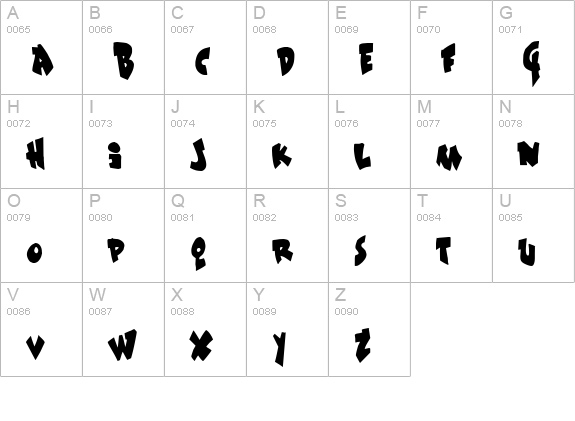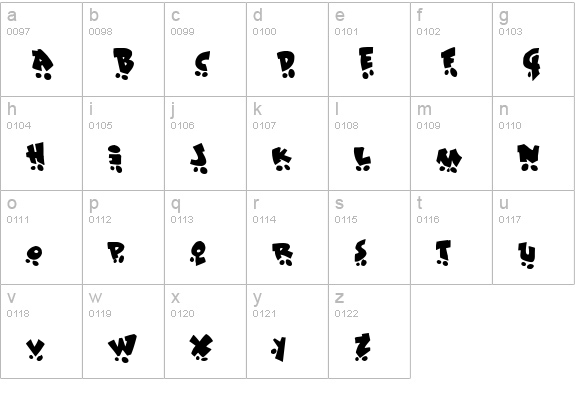
Sk8 or dye Font Details
Sk8 or dye font is a vibrant and energetic typeface that effortlessly captures the rebellious spirit of skateboarding culture. With its bold and edgy letterforms, this font is perfect for creating eye-catching designs that demand attention. The Sk8 or dye font is characterized by its playful and dynamic style, featuring sharp angles and stylized details that evoke the adrenaline-fueled atmosphere of the skatepark. Each letter is carefully crafted to reflect the fearless and adventurous nature of skateboarders, making it the ideal choice for projects that aim to convey a sense of excitement and energy. This font is not only visually striking but also highly versatile. Its unique design allows it to be used in a wide range of contexts, from skateboarding brands and events to music festivals and extreme sports advertisements. Whether you're designing a bold logo, a catchy headline, or a striking poster, Sk8 or dye font will surely make your message stand out. The best part? Sk8 or dye font is available for free download at FontsMarket.com. Yes, you read that right – this incredible font can be yours without spending a single penny. Simply visit FontsMarket.com and discover the world of Sk8 or dye font, where creativity knows no bounds. Don't miss out on the opportunity to add this remarkable font to your design arsenal and let your imagination run wild. Get your hands on Sk8 or dye font today and bring your designs to life with its electrifying energy!